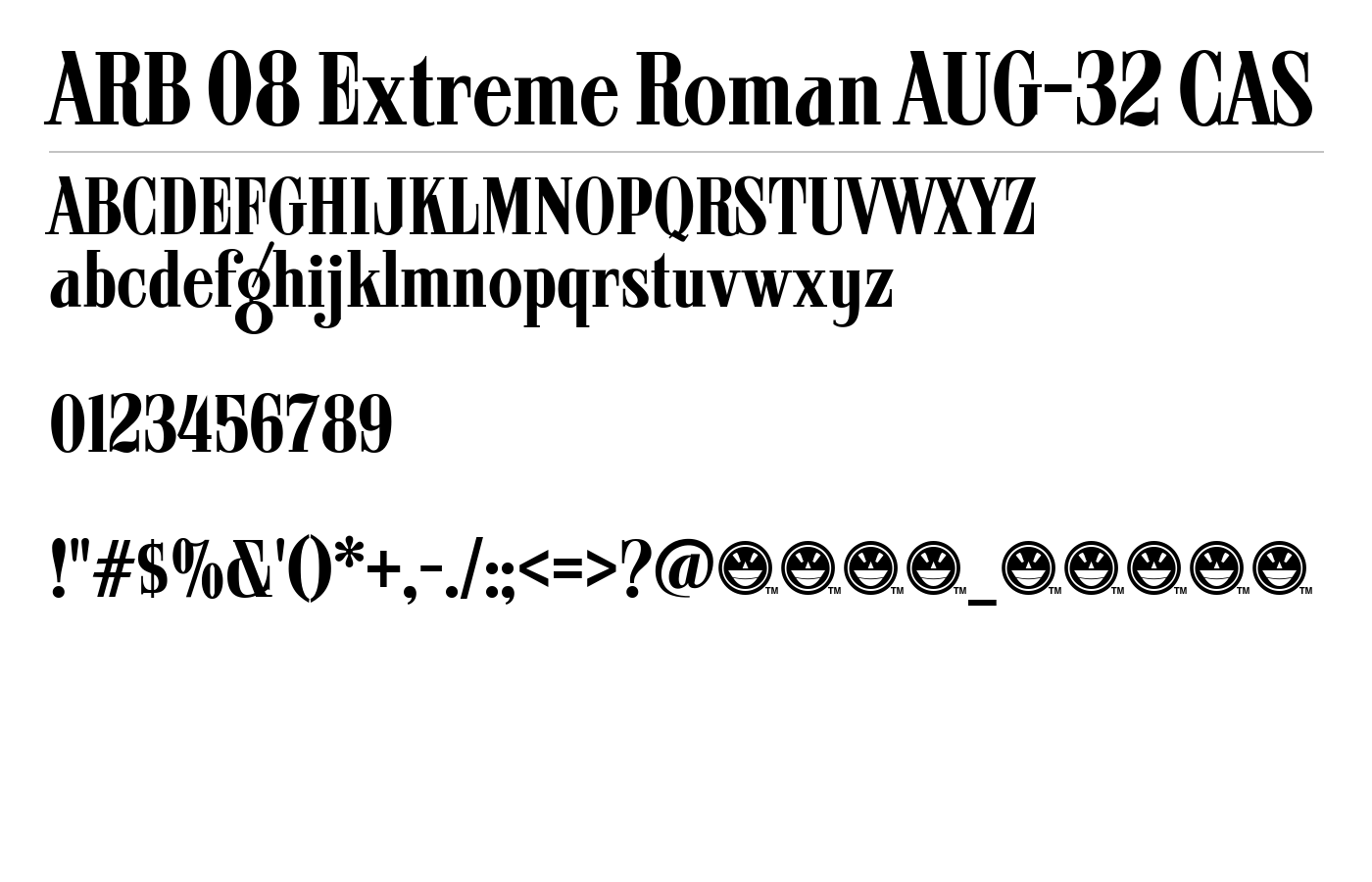
ARB 08 Extreme Roman AUG-32 CAS is a bold, condensed serif font featuring high contrast between thick and thin strokes that gives it a striking and elegant appearance. Its modern Didone style, with sharp, thin serifs and distinctive letterforms like the single-story a and the swashed tail on Q, makes it perfect for impactful headlines, luxury branding, and editorial designs where a refined yet dramatic look is desired. This font brings a strong, sophisticated personality that commands attention in fashion, magazine covers, and sophisticated packaging.
ARB 08 Extreme Roman AUG-32 CAS Font
About ARB 08 Extreme Roman AUG-32 CAS Font